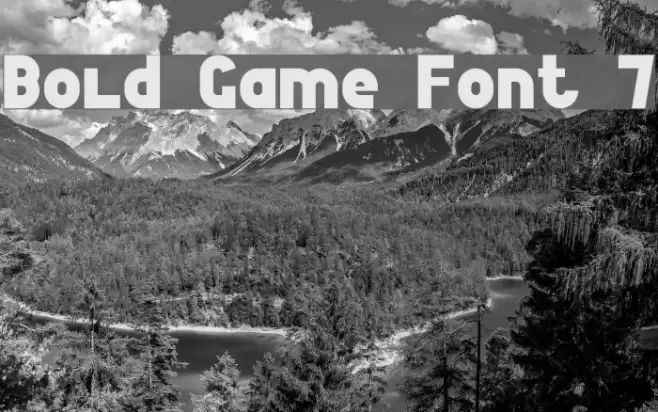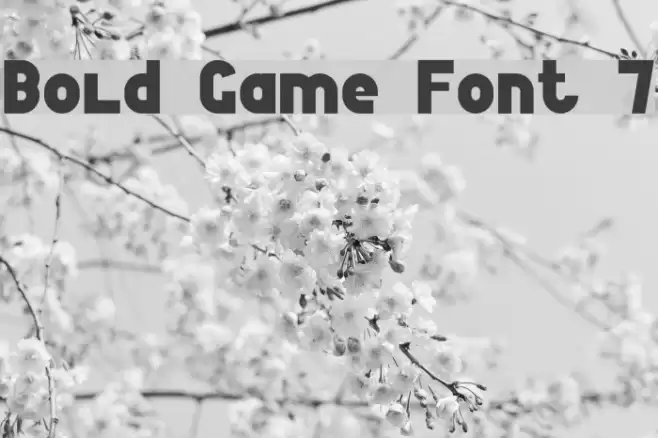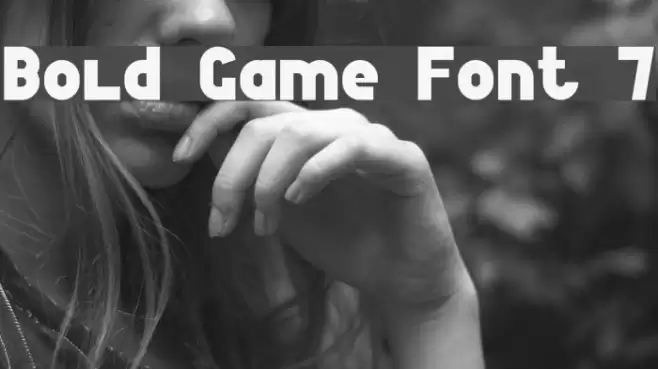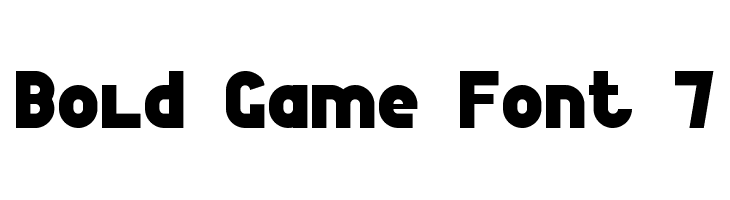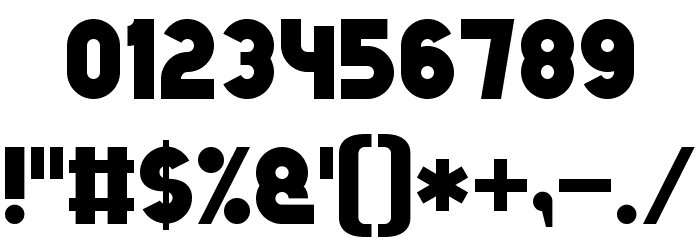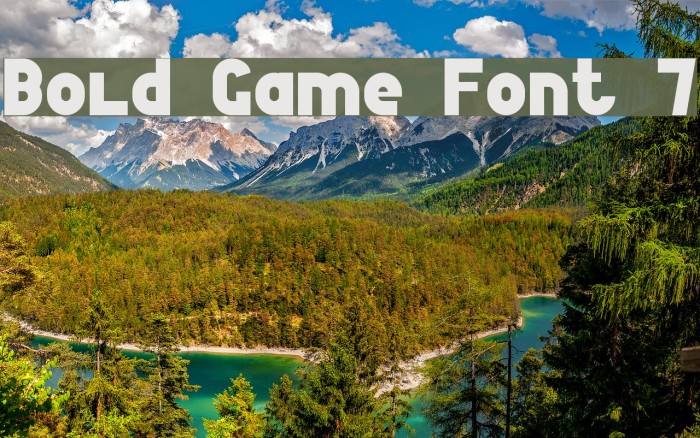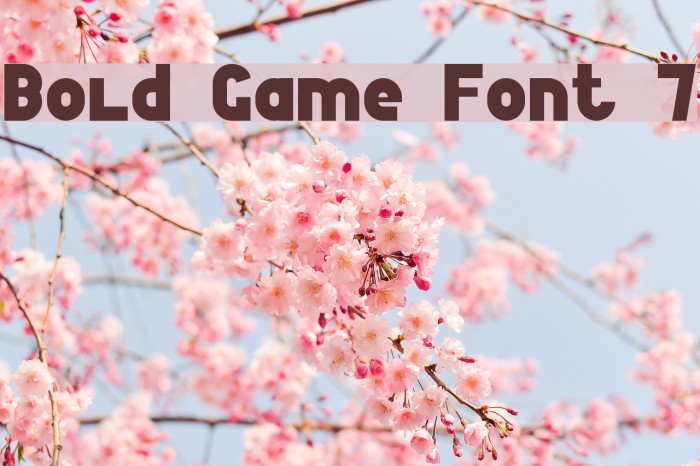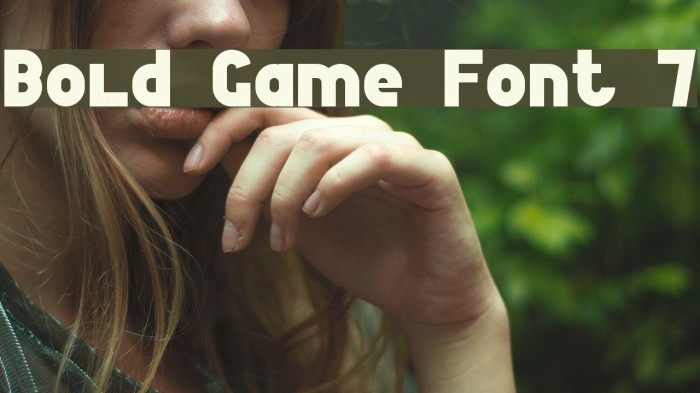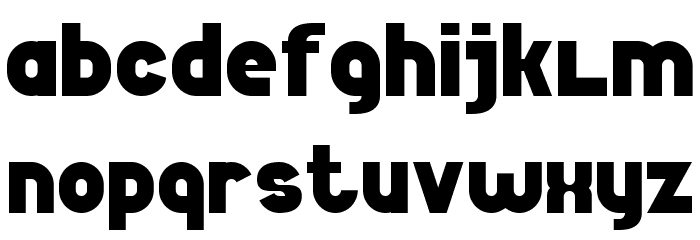
Bold Game Font 7 Font
Bold Game Font 7 Description
This font features a bold and robust design, characterized by thick, uniform strokes that convey strength and impact. The letters are blocky and geometric, with a slight curvature that adds a touch of playfulness to the otherwise solid structure. The uppercase and lowercase letters maintain a consistent style, ensuring readability and cohesion. The numerals and special characters are designed to match the boldness of the alphabet, making them suitable for attention-grabbing displays. The overall appearance is modern and dynamic, ideal for projects that require a strong visual presence.
A bold, geometric font with thick strokes and a modern, impactful style from Uncategorized fonts.